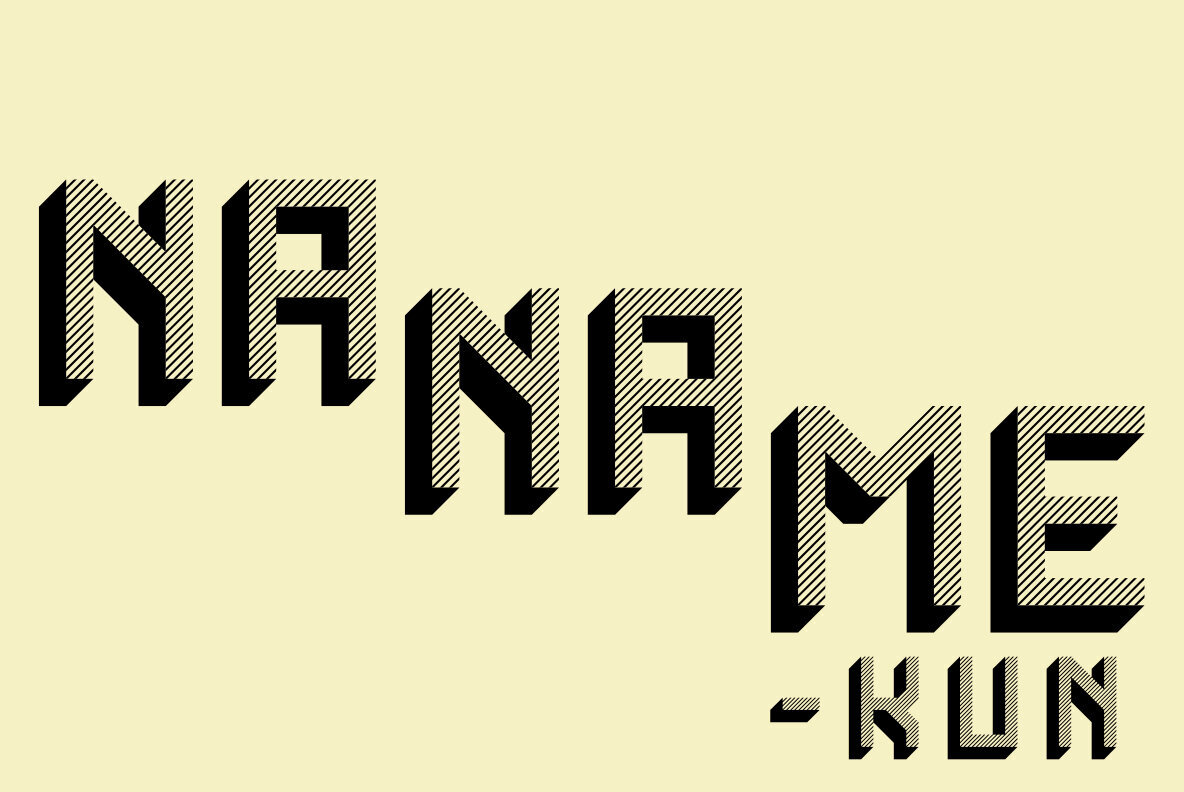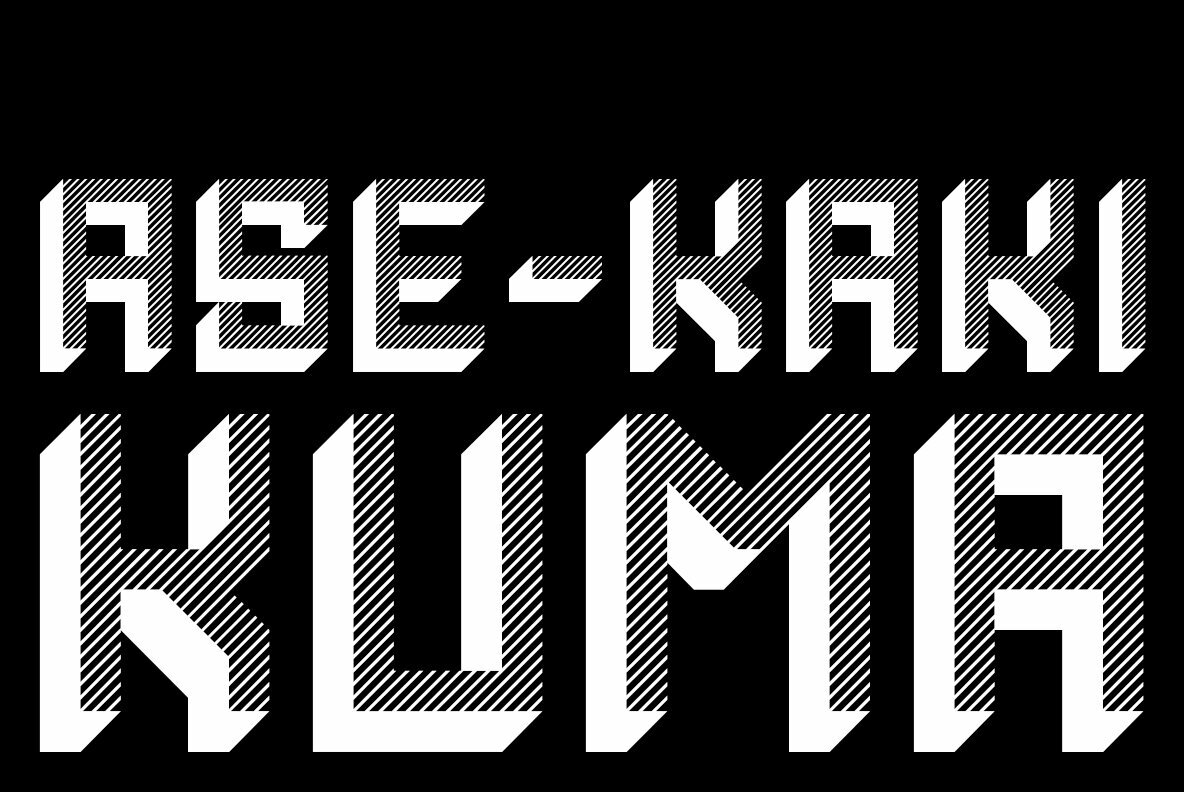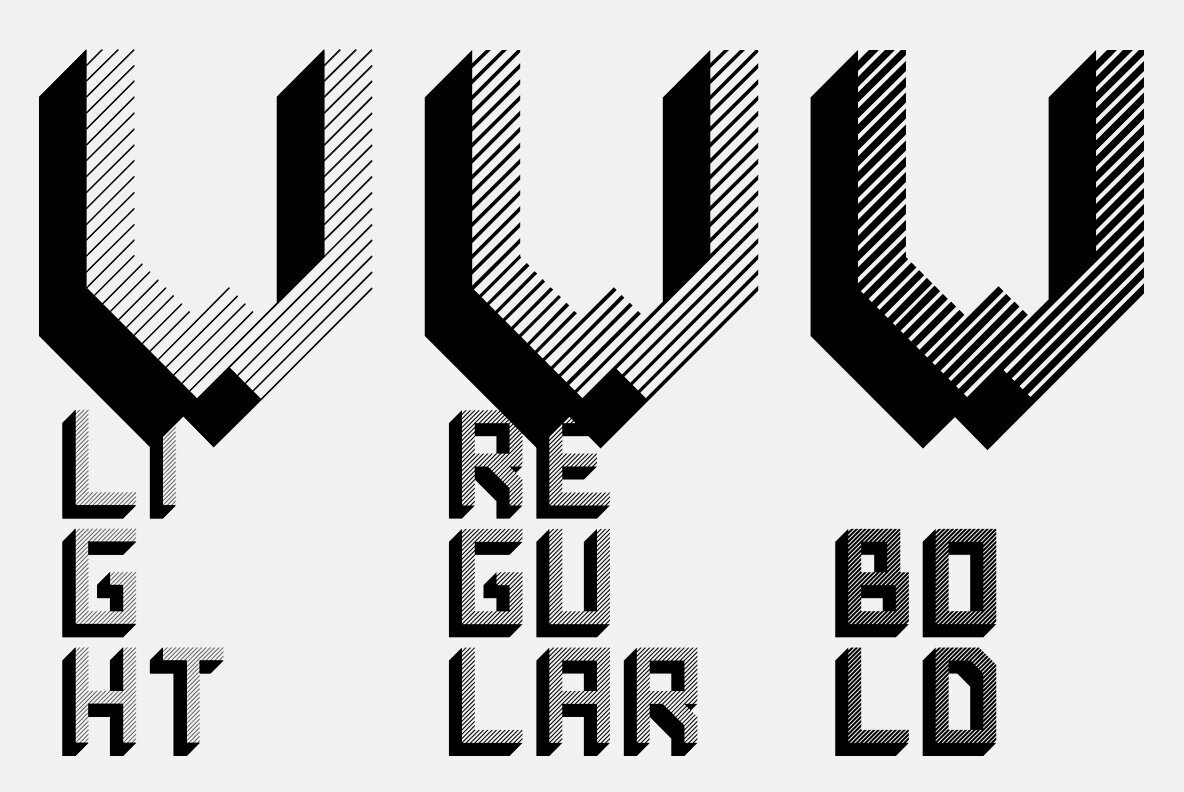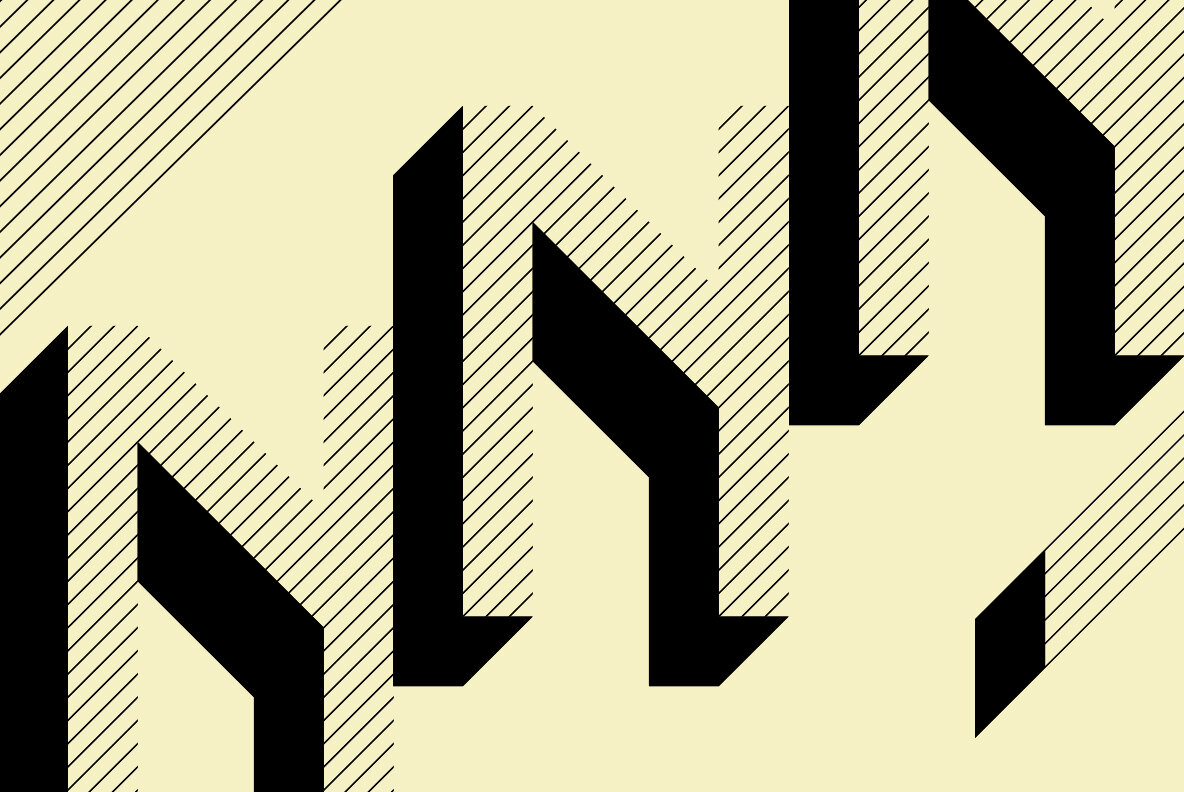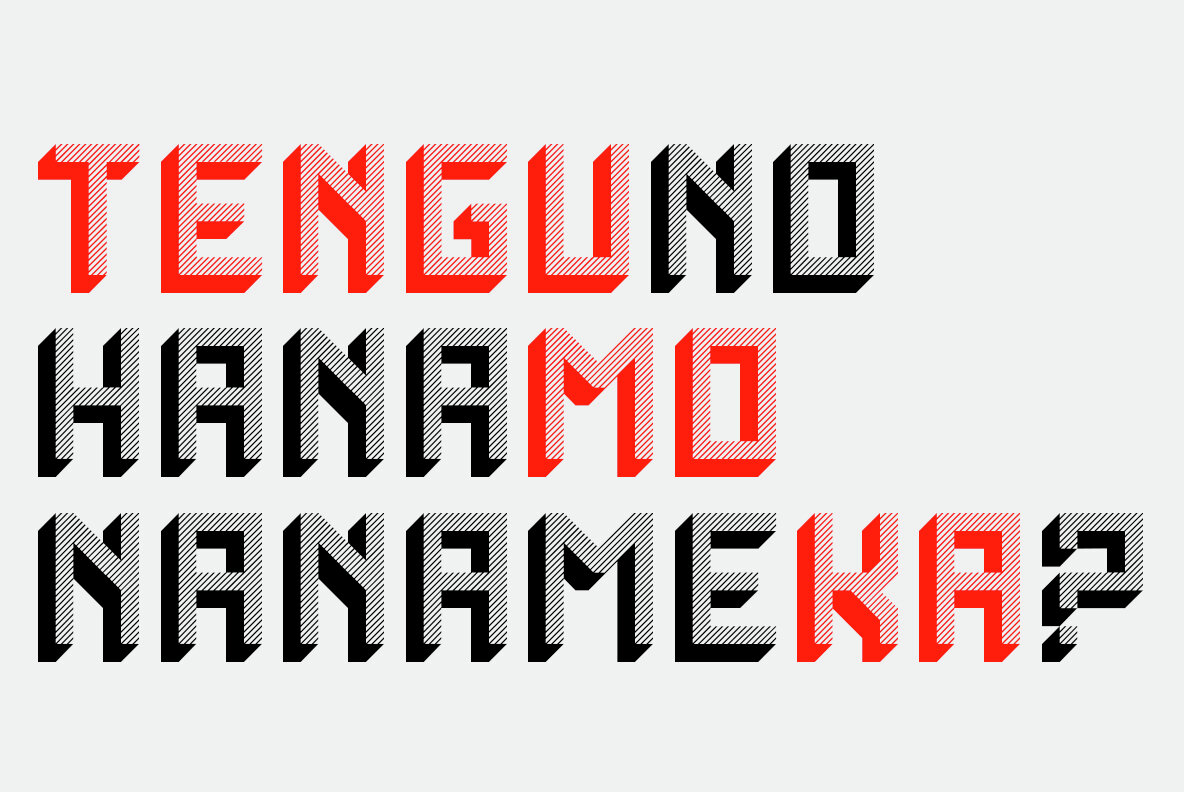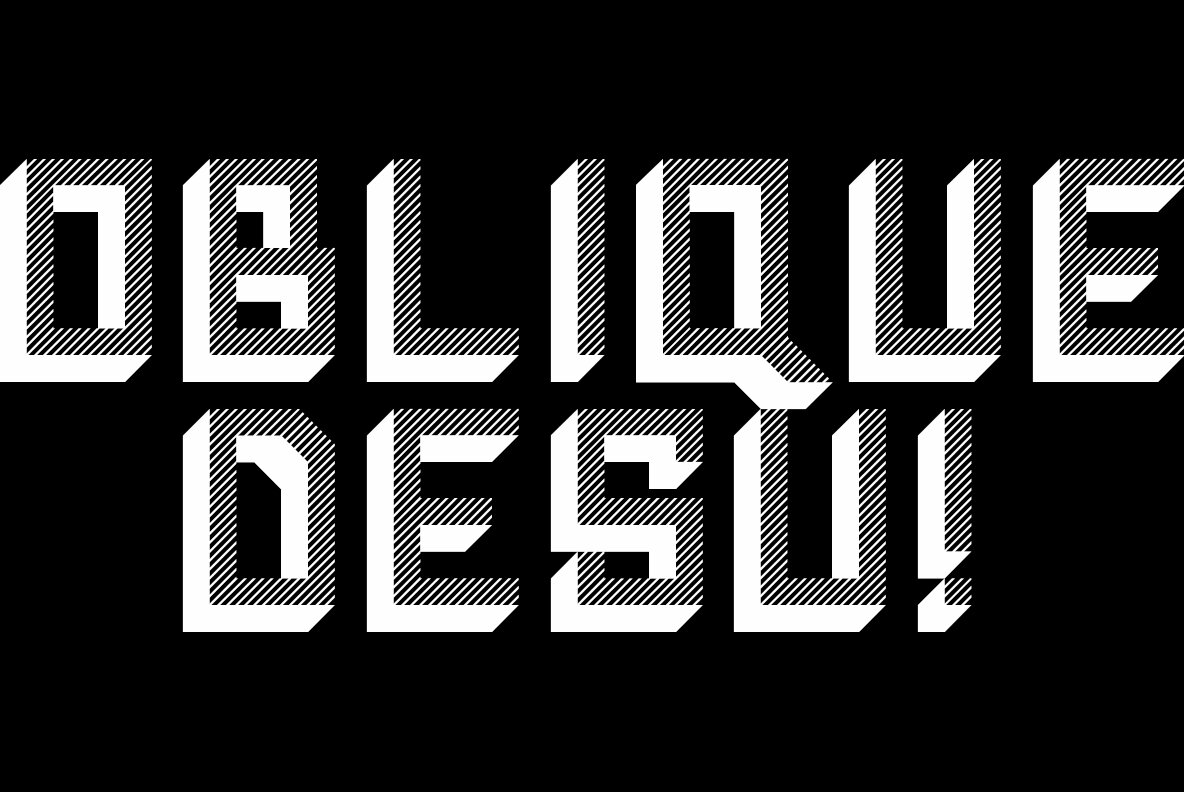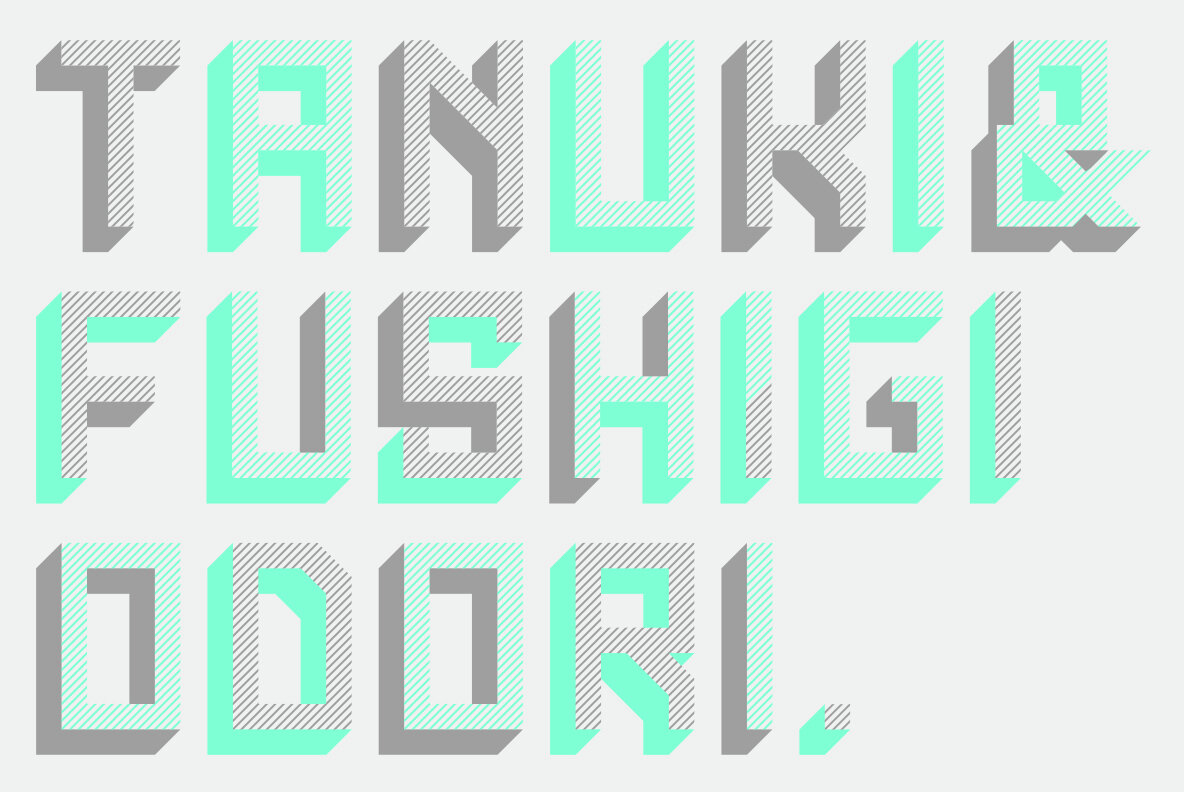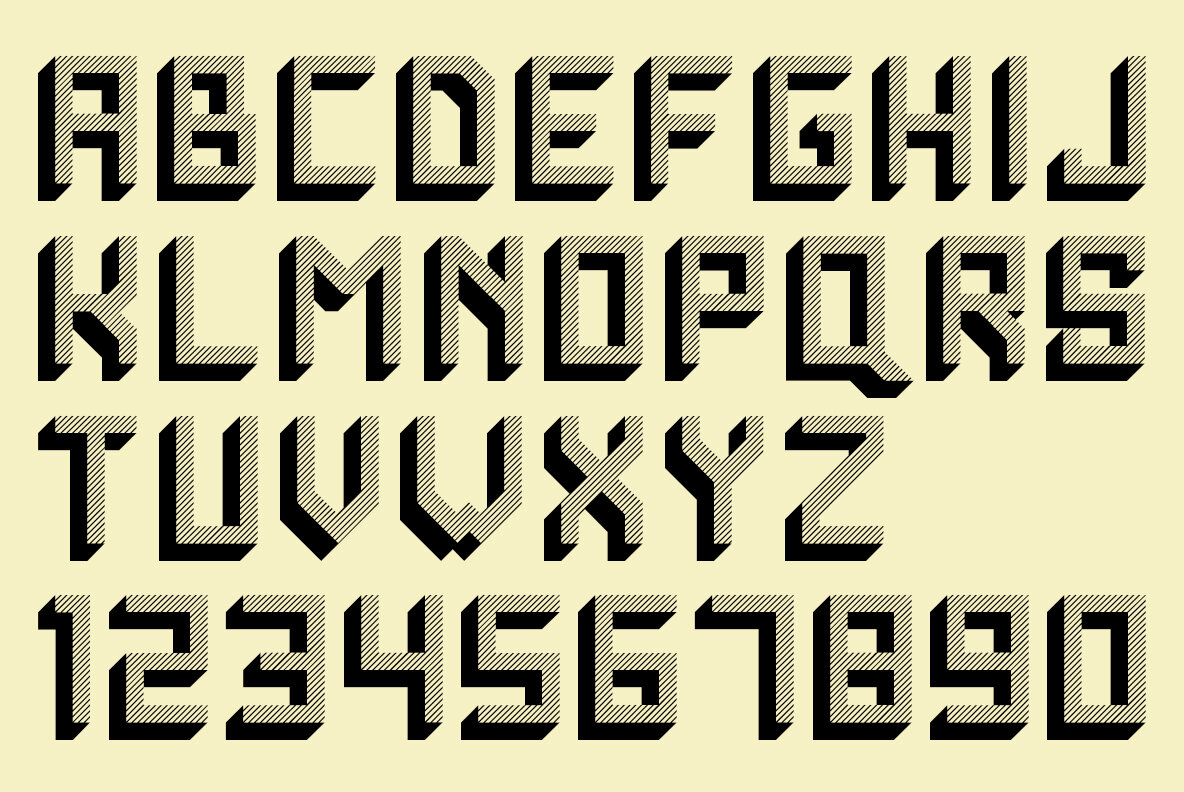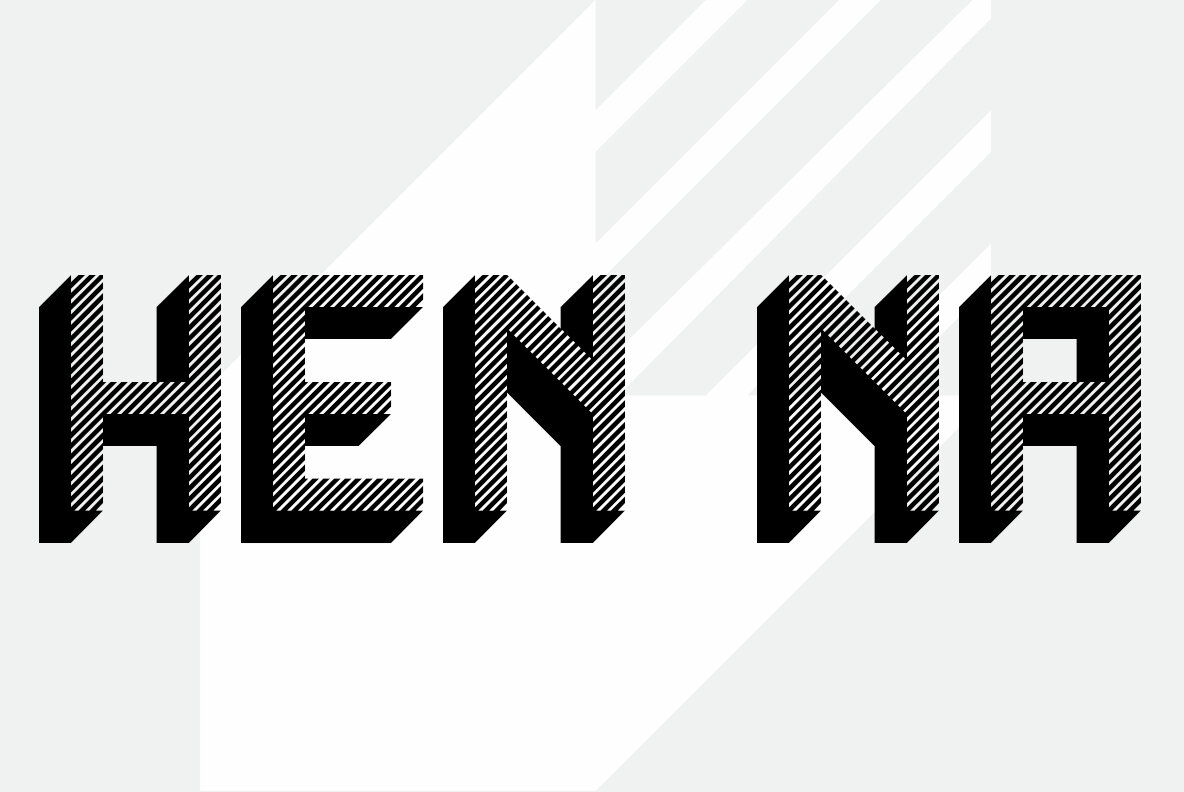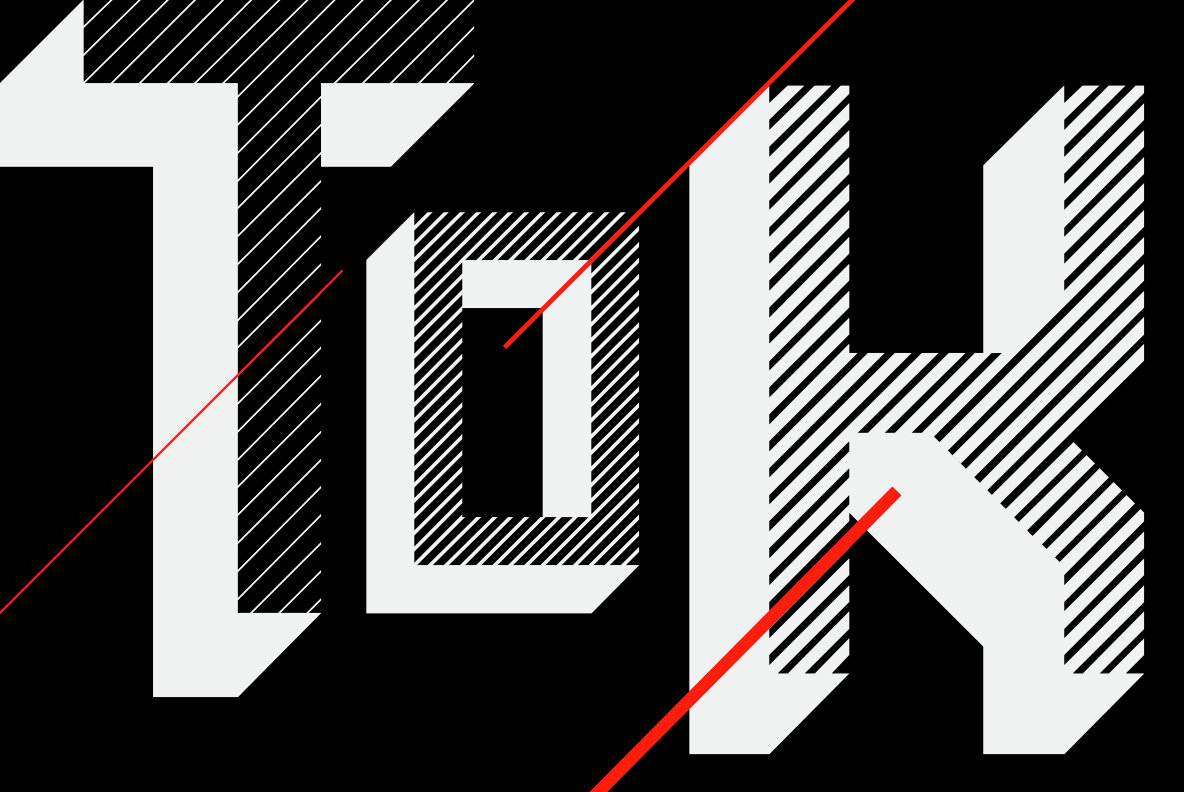
Naname Kun
Naname Kun is a geometric typeface created with oblique lines as a main texture. Its unique particularity is to be filled with diagonal hatching that varies in thickness to create different styles and weights. Applicable for any type of graphic design, especially for posters and logotypes.